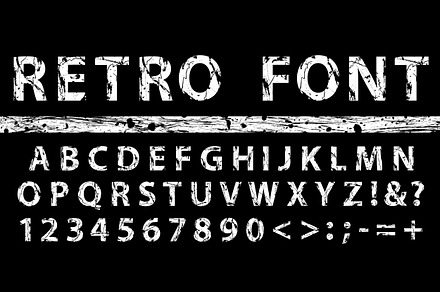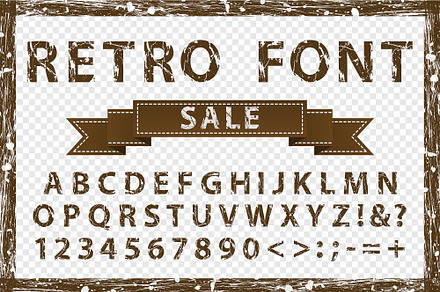
Grunge ink vector font
Grunge vintage ink black and white font. Old style letters. Vector illustration
Grunge ink vector font by PhotoVector fits naturally into Branding, posters, packaging, typography.